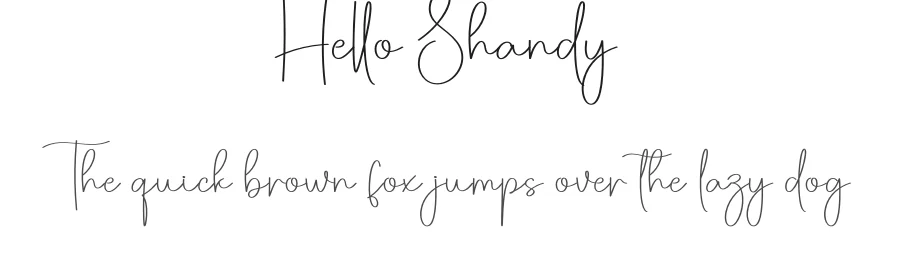
About Aneetha Font
Aneetha Specifications
| Designer | Saila nurissalma |
Aneetha Font is a script font that shines as a display or heading face. Pair it with a clean sans-serif or serif font for body text β the contrast creates a clear hierarchy while the two styles stay balanced and easy to read.